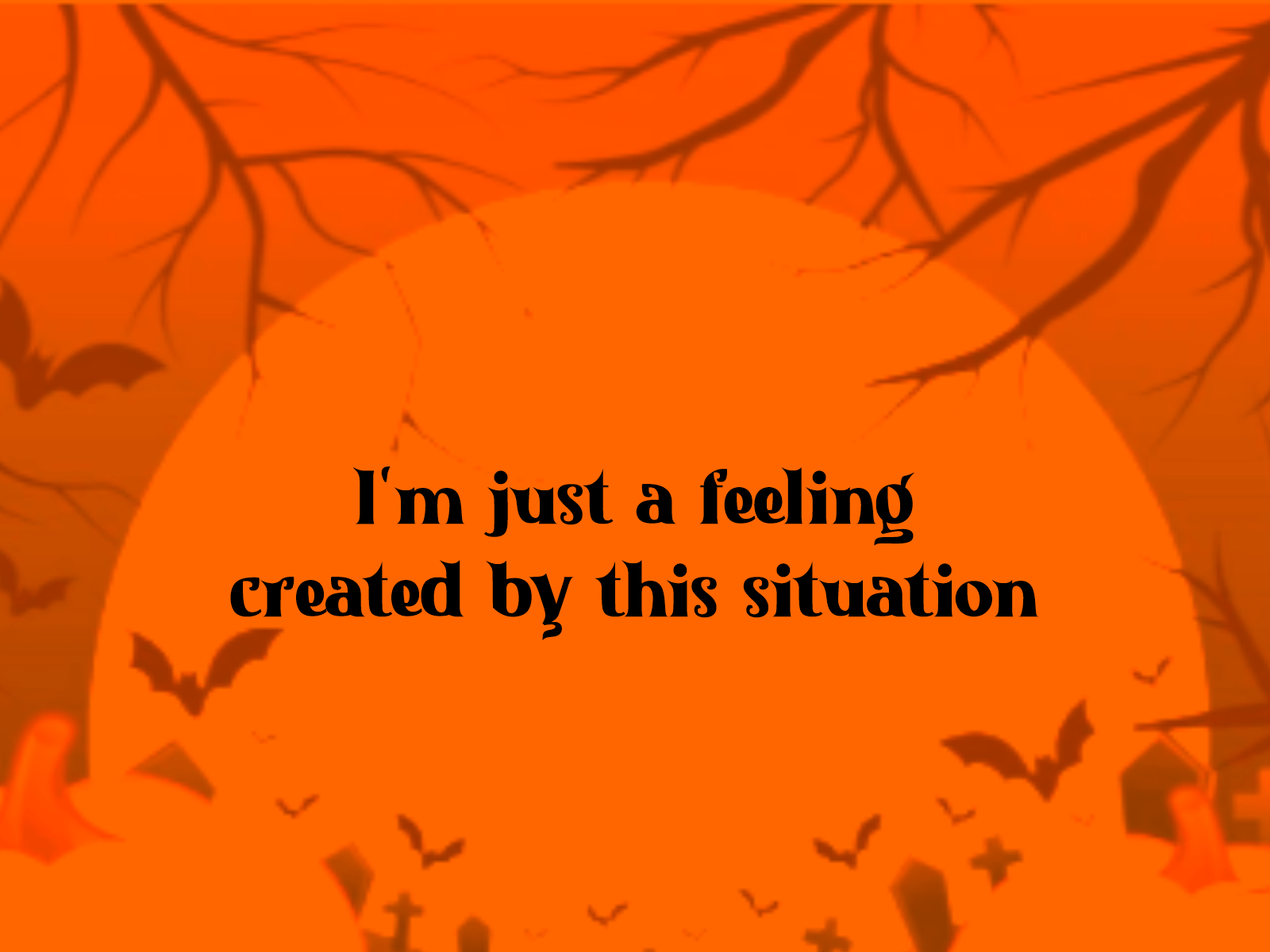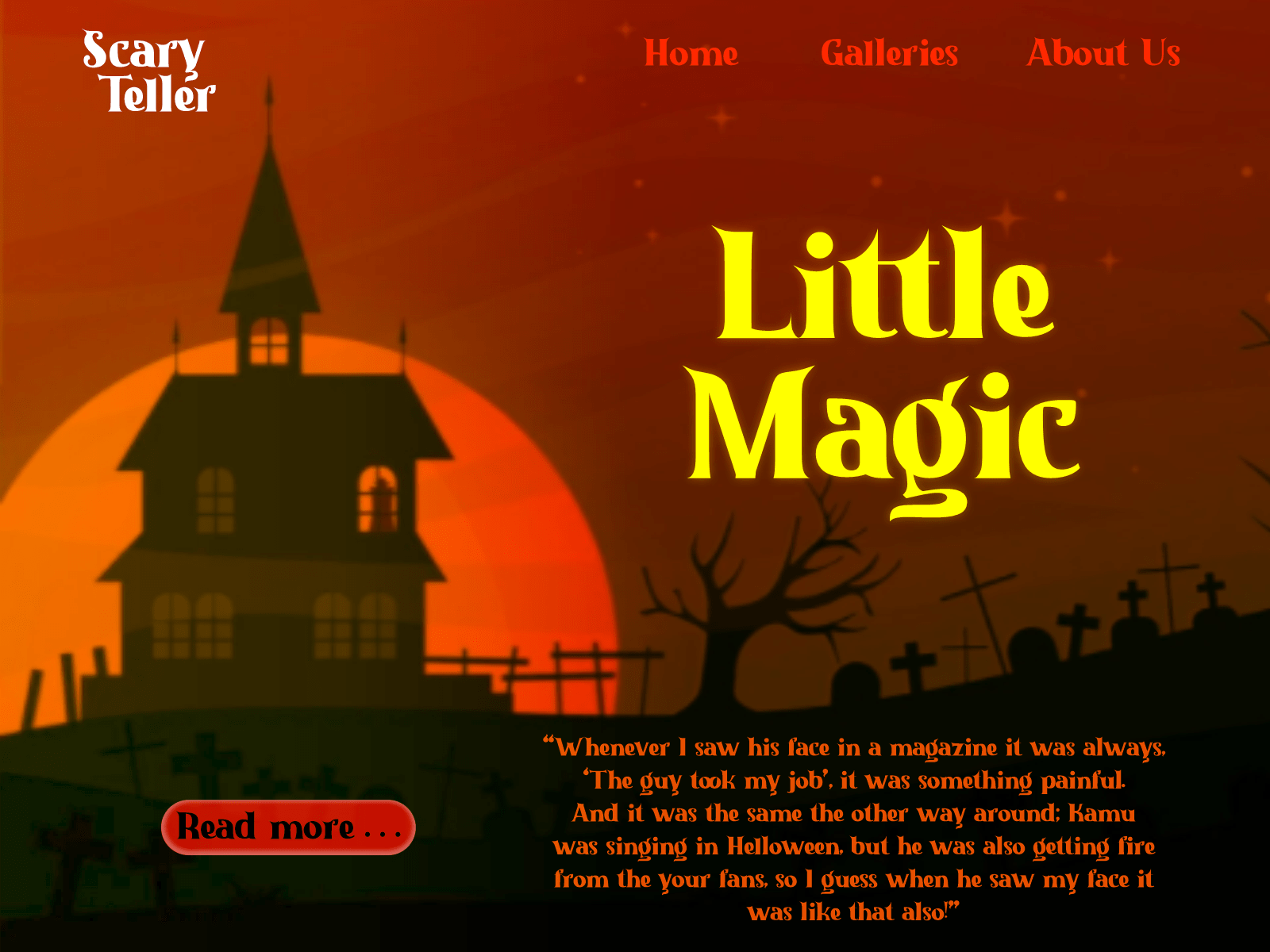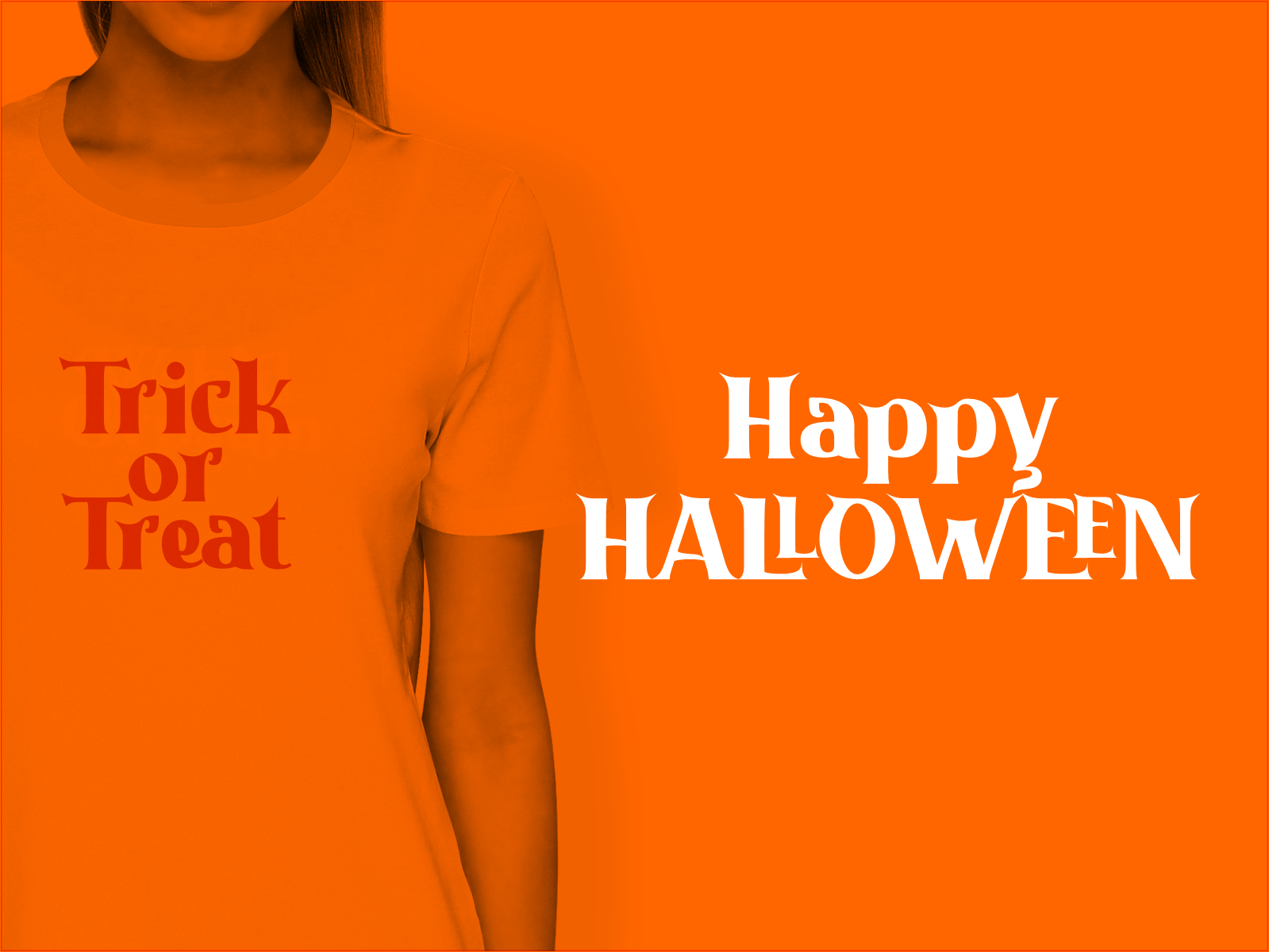
Halloween Nightmare Font
Halloween Nightmare Display Font
It’s a trendy and charming serif font. Whatever the topic, this font will be a wonderful asset to your font library, as it has the potential to enhance any creation.